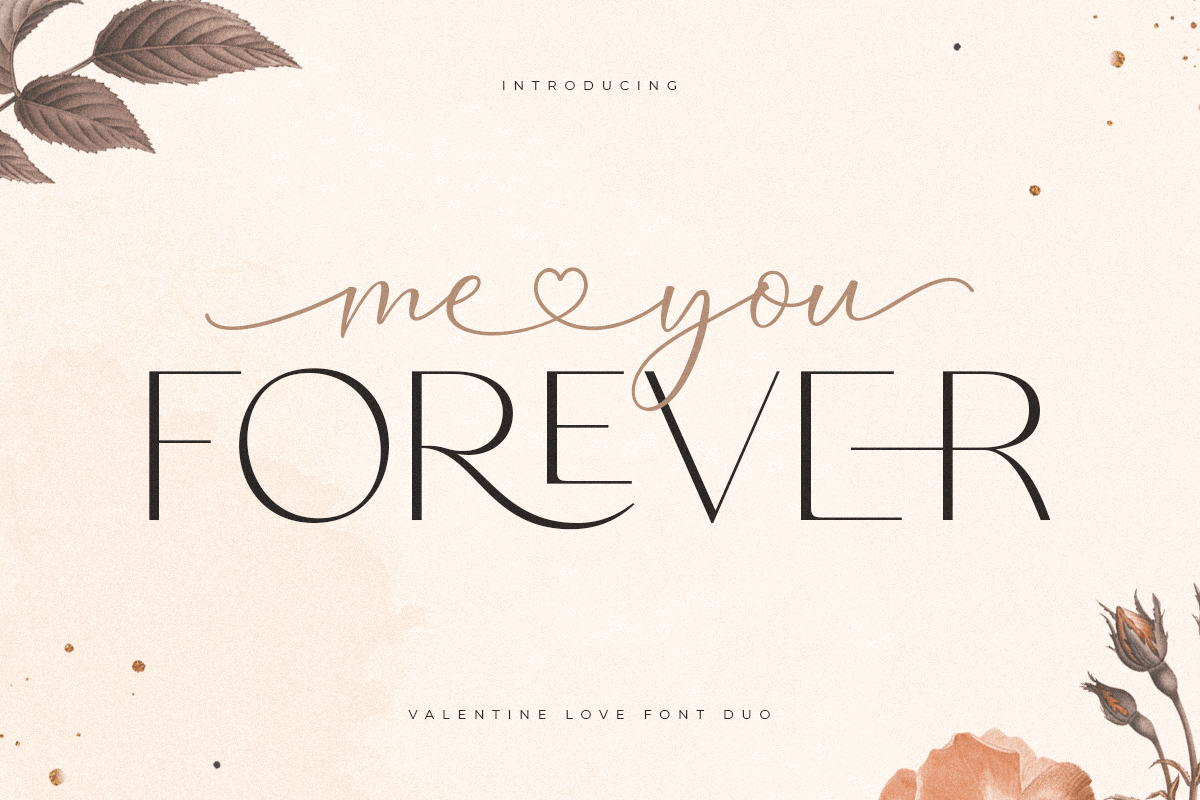
Me You Forever
-Valentine Love Font Duo
Me You Forever is a Valentine Love Font Duo best for a brand, sign, and any purpose design.
Based on our experience as a graphic designer who works for a lot of companies, we often are requested to create a classy design. So, here we try to brainstorming and create this font duo to make the idea is going out. This is perfect for BRANDING and ANY PURPOSE DESIGN. You will get classy, elegant, and certainly unique font.